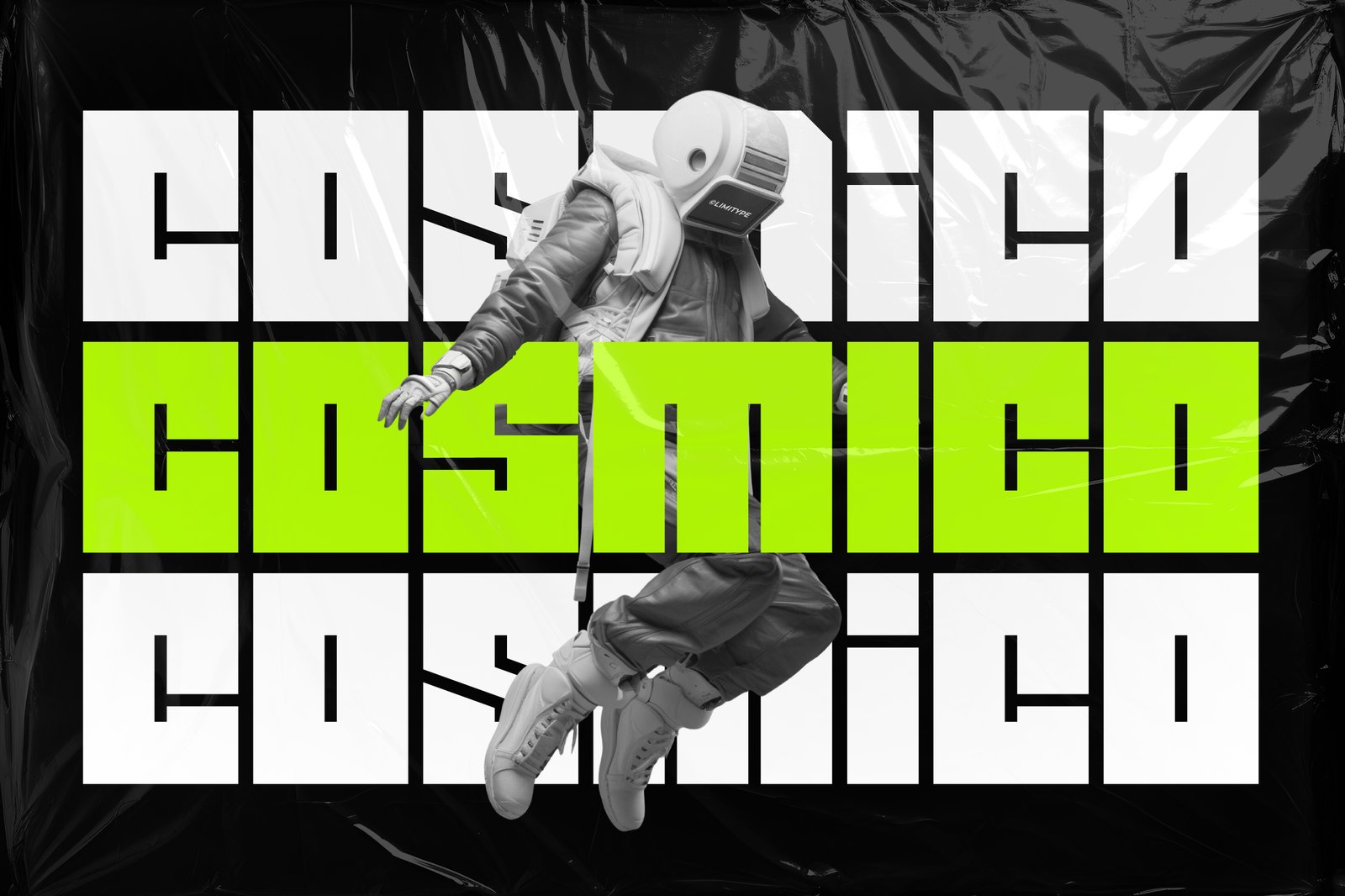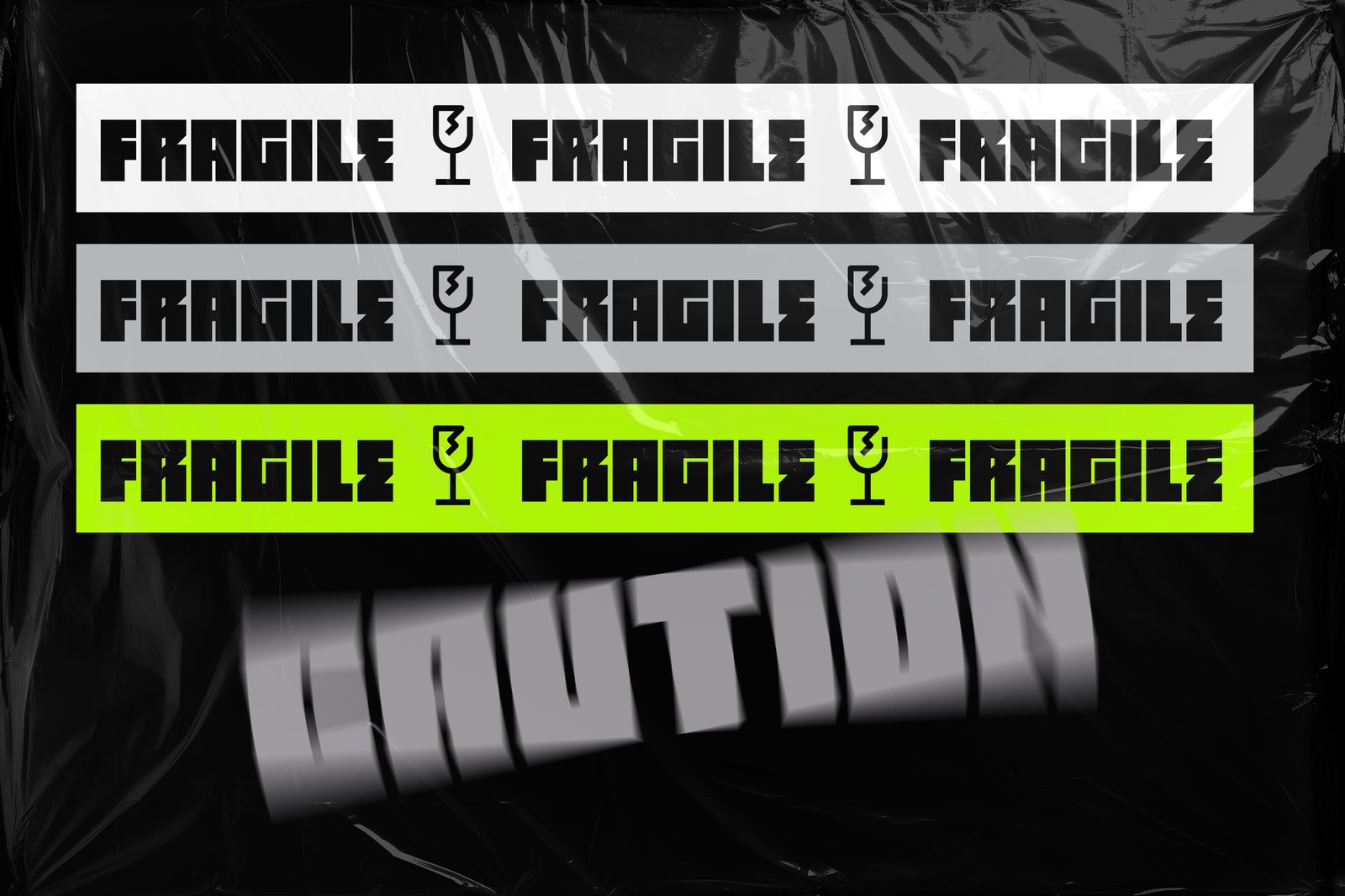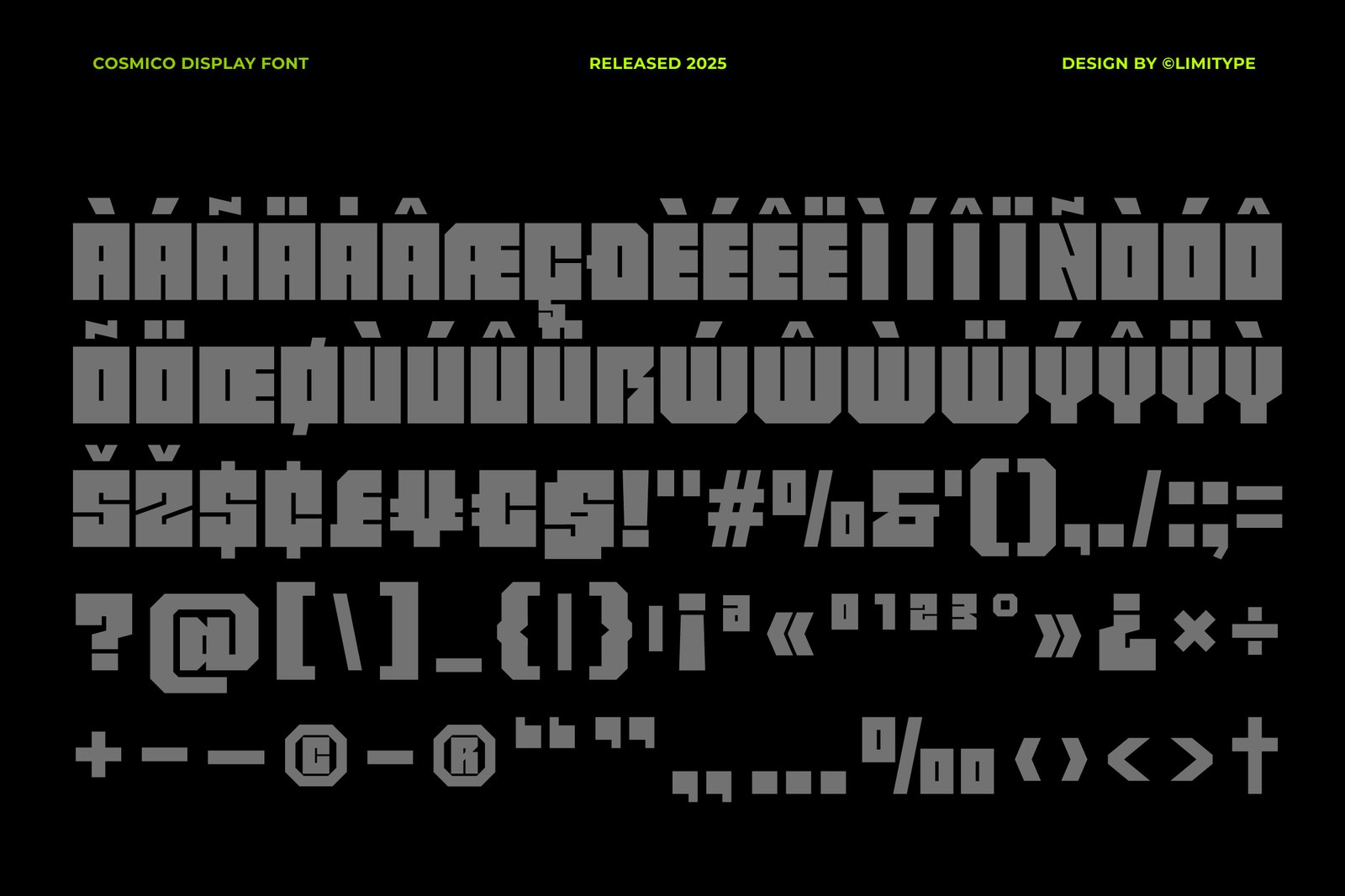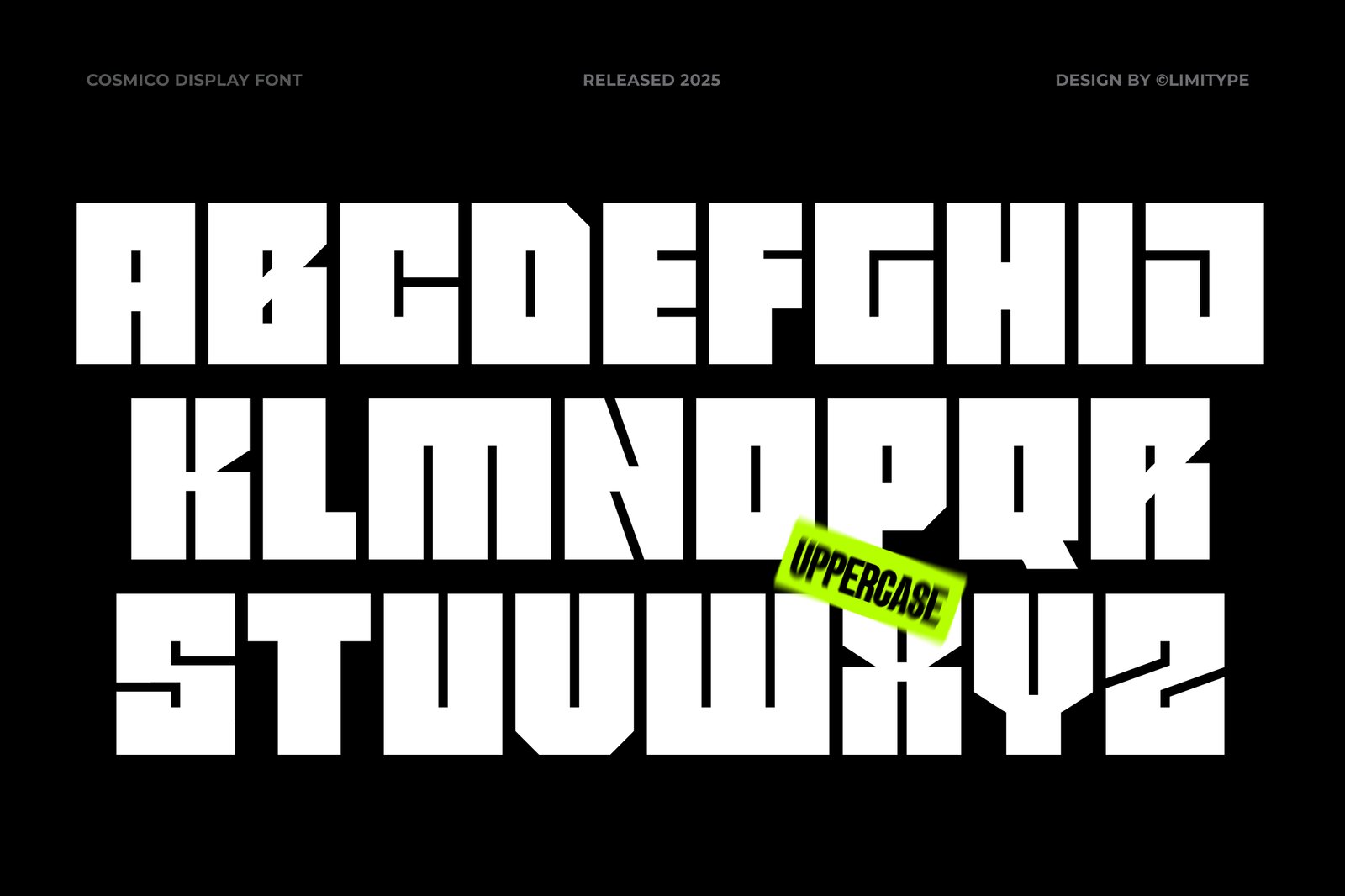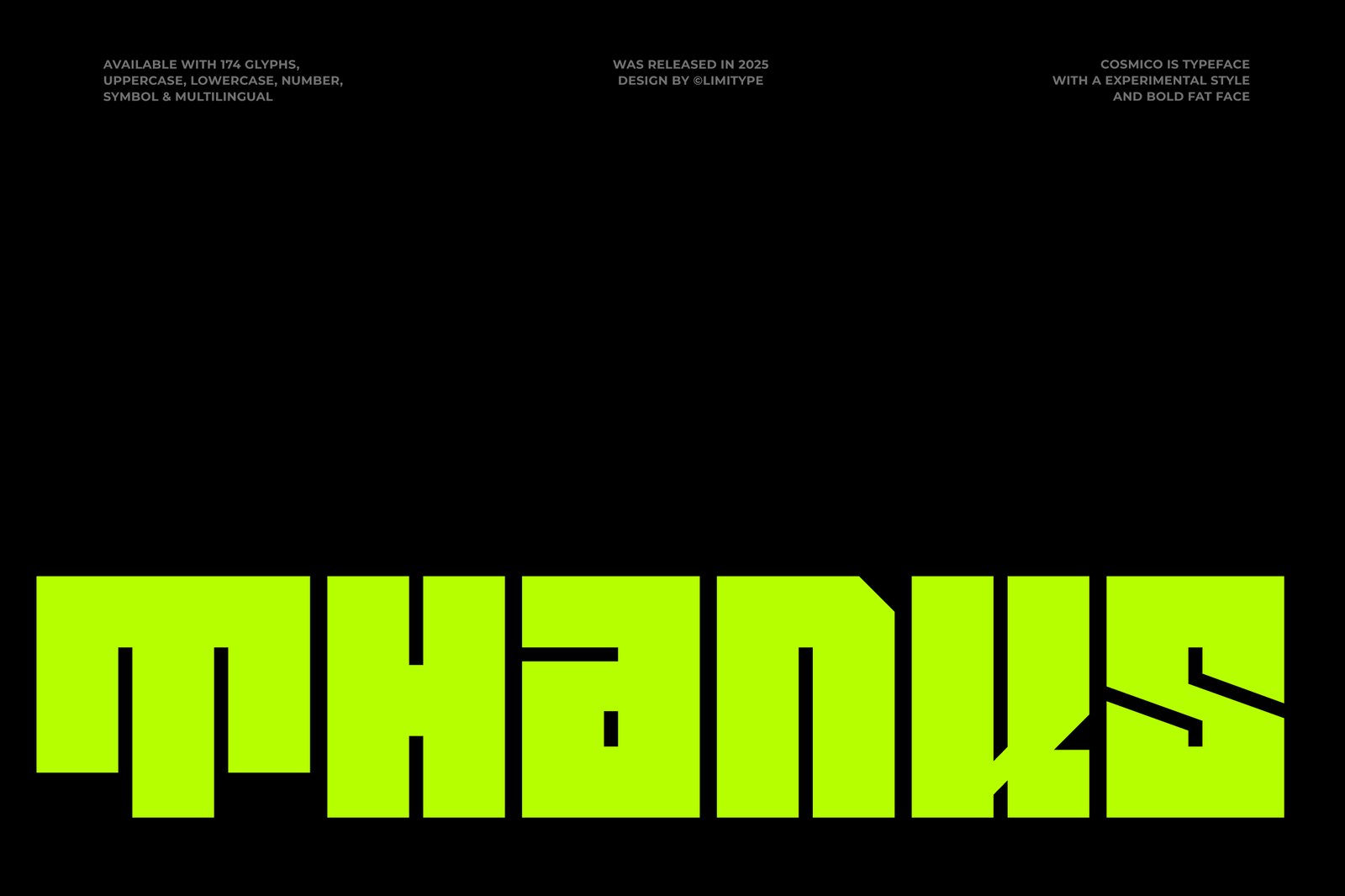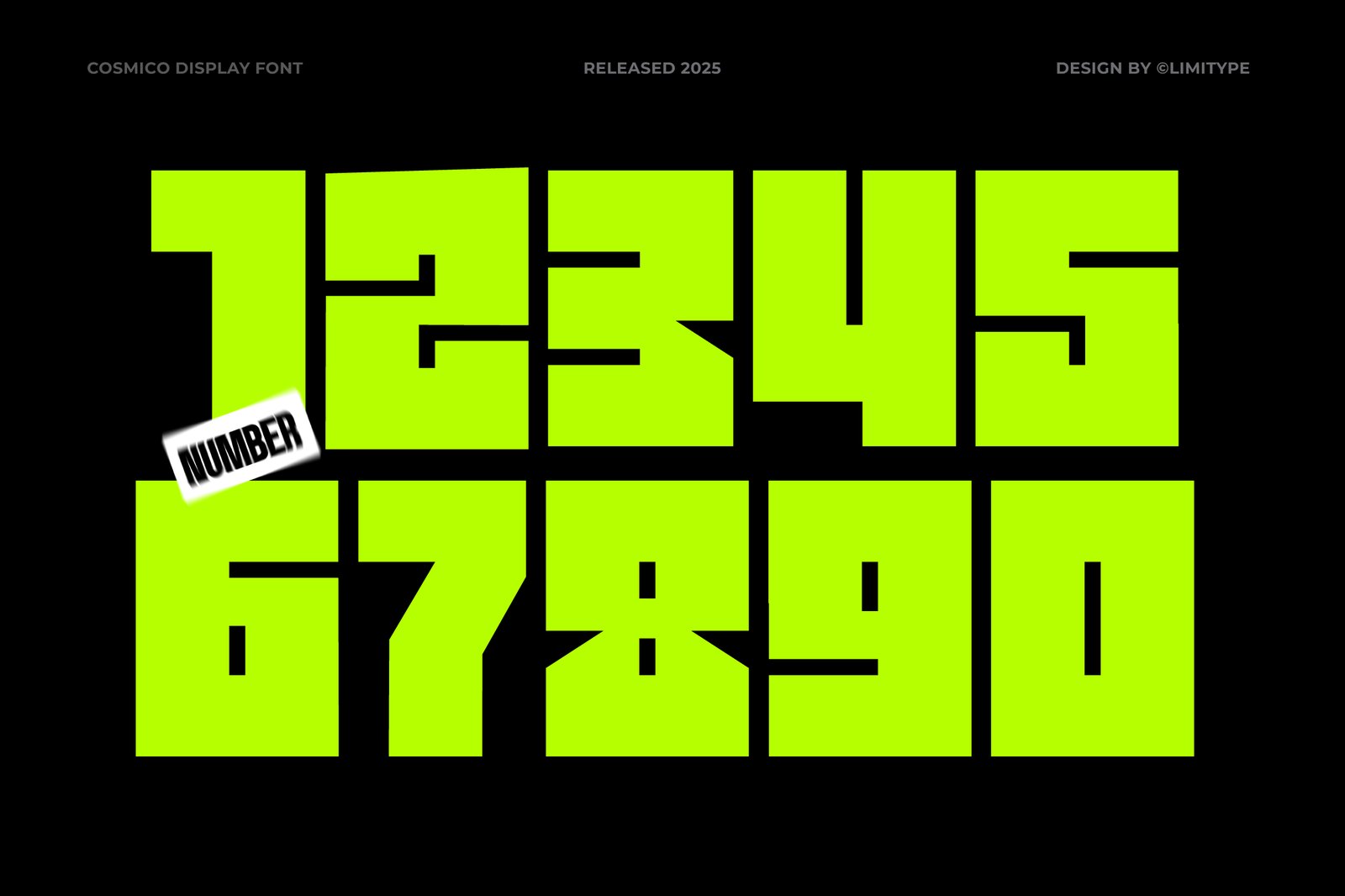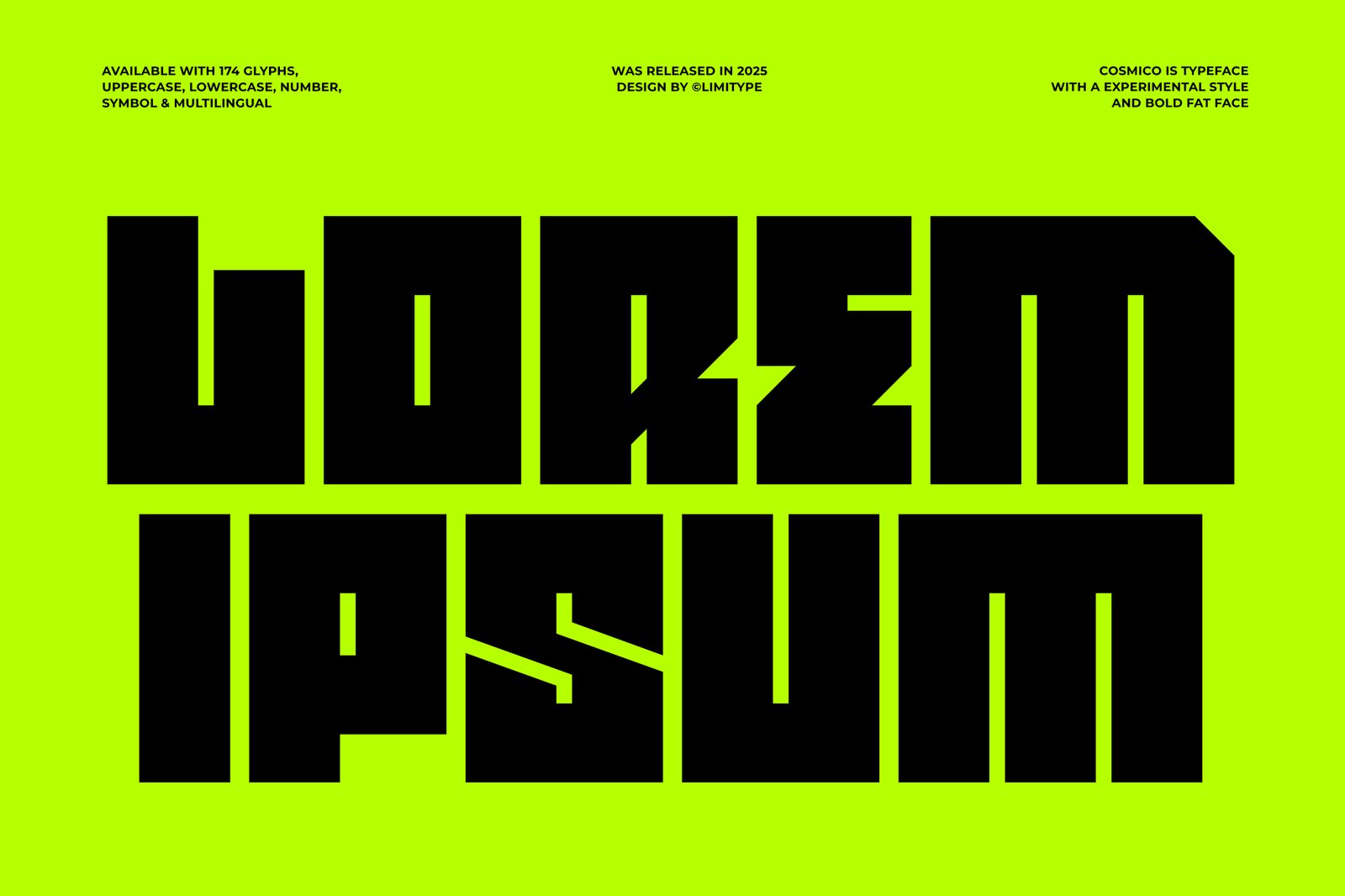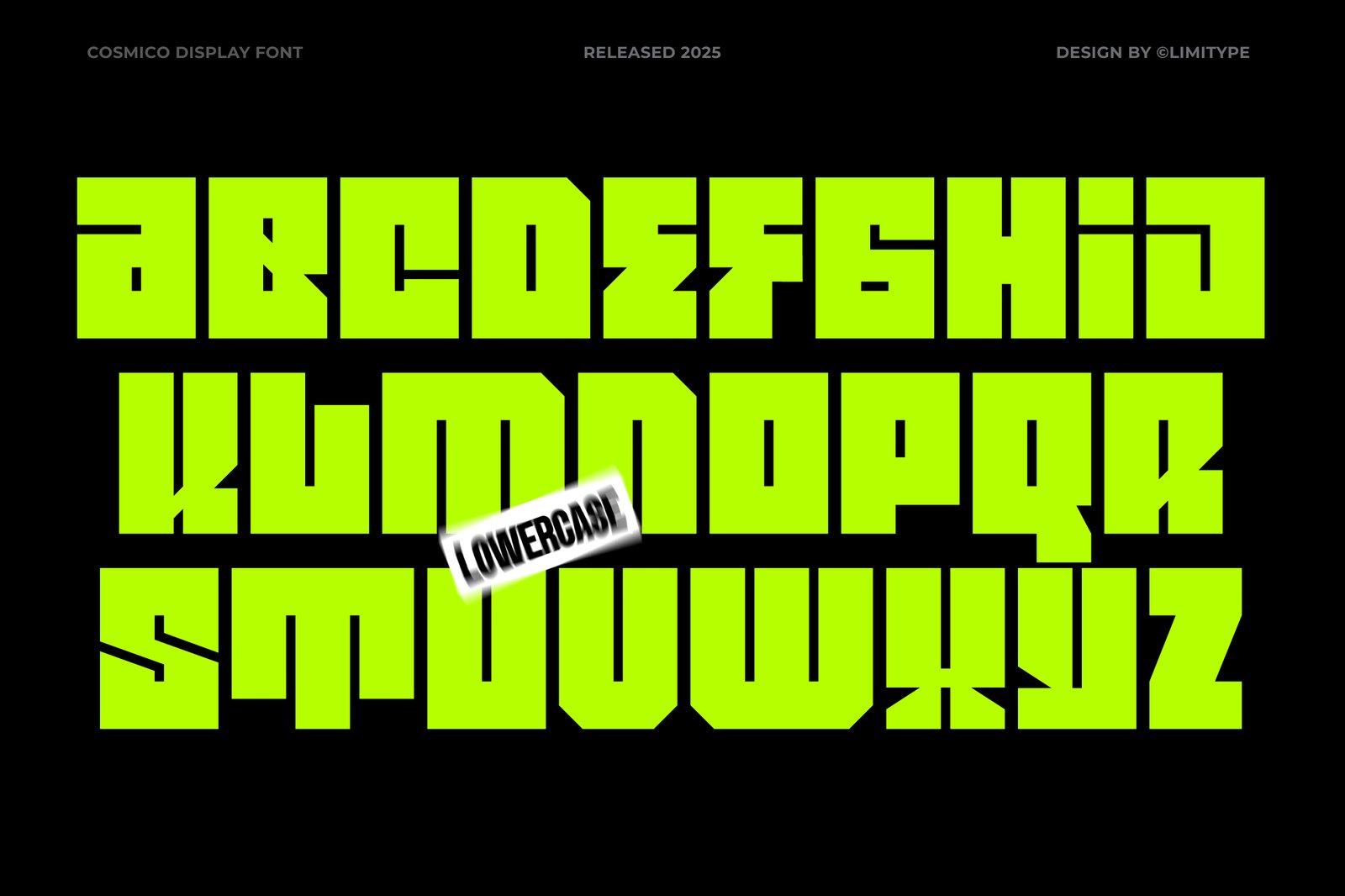
Cosmico - Futuristic Font
Cosmico is a bold modern font with a sharp and strong character. Designed to stand out and look professional, it’s suitable for branding, headlines, posters, and digital designs that need a strong, modern, and futuristic feel.